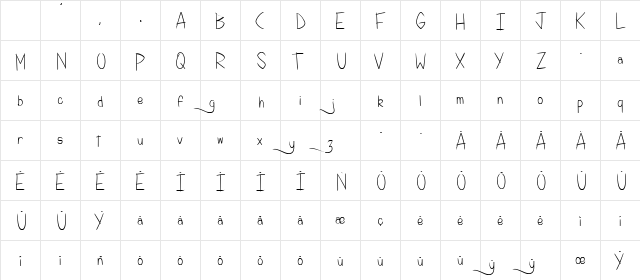
Complete Kelly Brush The World Regular glyph index. Displaying only characters natively supported by Kelly Brush The World Regular font.
Kelly Brush The World flows with the natural rhythm of handwritten lettering, making it ideal for designs that call for warmth and personal expression.
Font Pairing: Combine Kelly Brush The World with a simple geometric sans for maximum contrast - the tension between flowing curves and clean structure is a classic typographic pairing.
Pro Tip: Use Kelly Brush The World for short runs of text - names, titles, or taglines. Extended body copy in script faces tires the eye quickly.